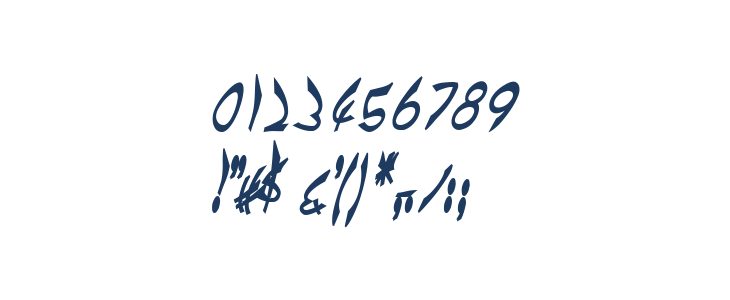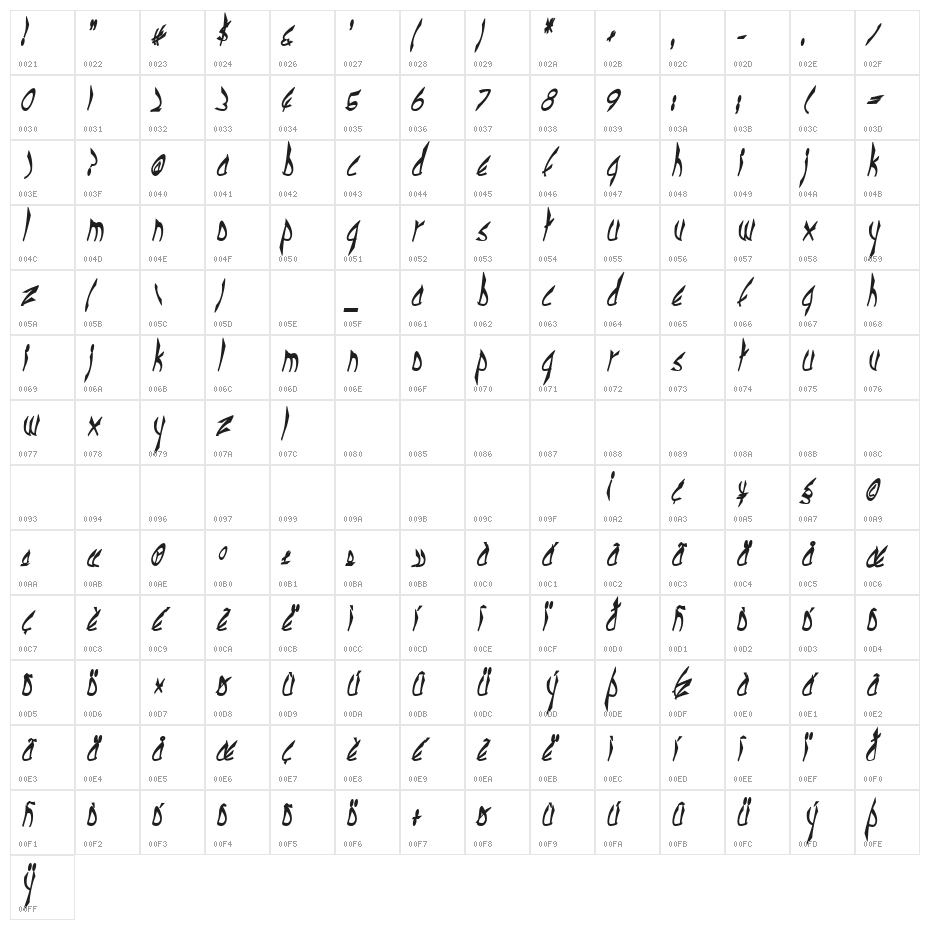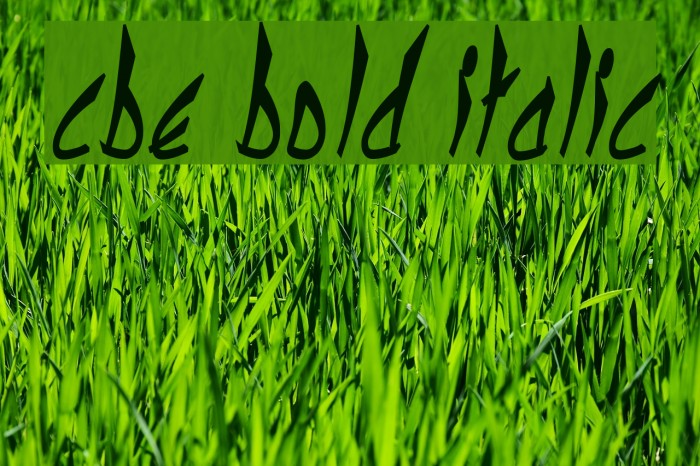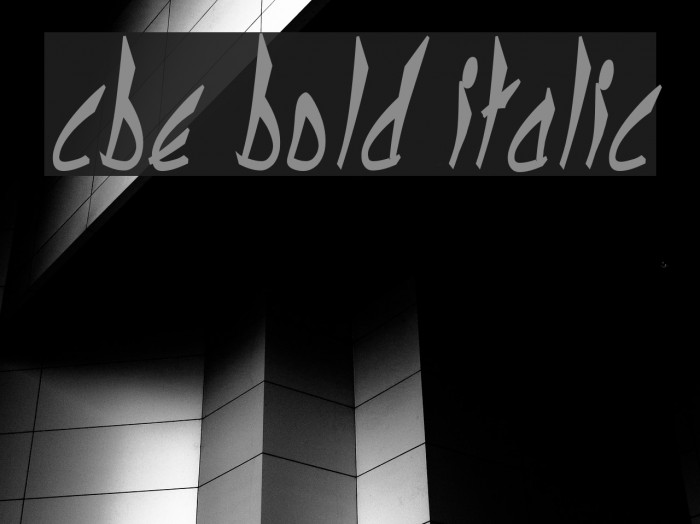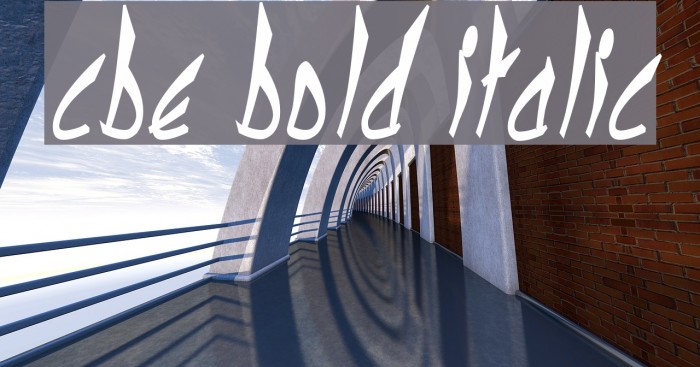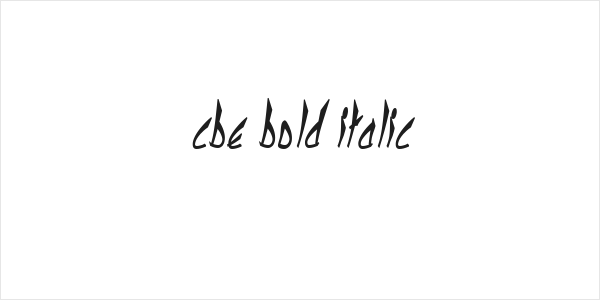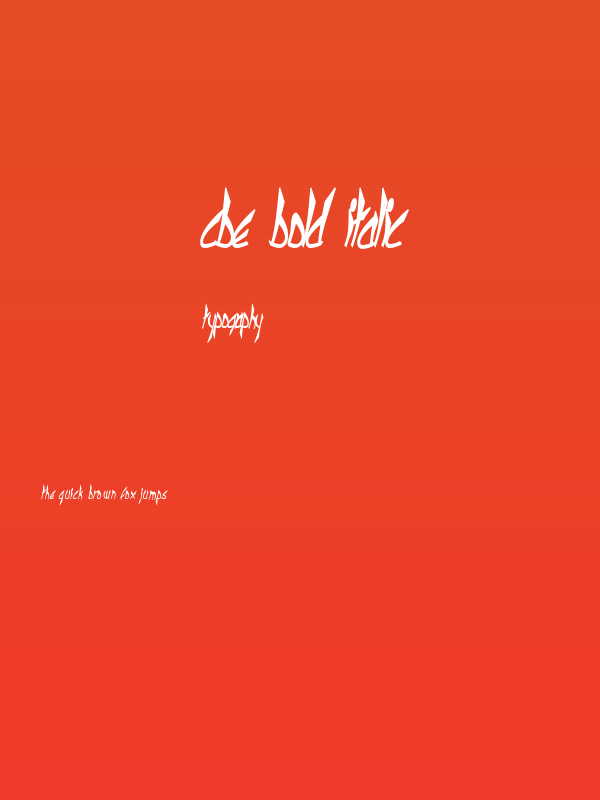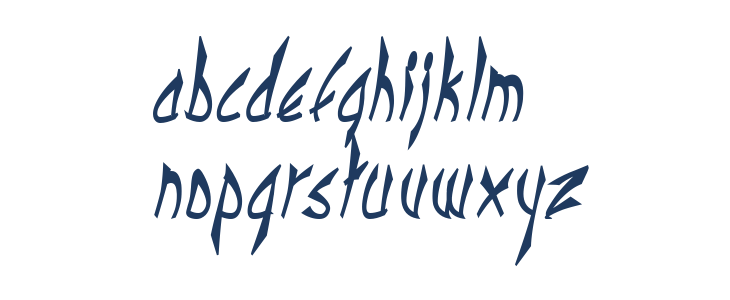
cbe Bold Italic Font
cbe Bold Italic Description
This font features a bold and italicized style with a dynamic and energetic appearance. The characters are sharply angled and have a hand-drawn quality, giving them a unique and expressive look. The uppercase and lowercase letters maintain a consistent slant, enhancing the italic effect. The numbers and special characters follow the same stylistic approach, ensuring uniformity across the font. The strokes are thick and bold, contributing to a strong visual impact. This font is suitable for projects that require a bold statement or a creative touch.